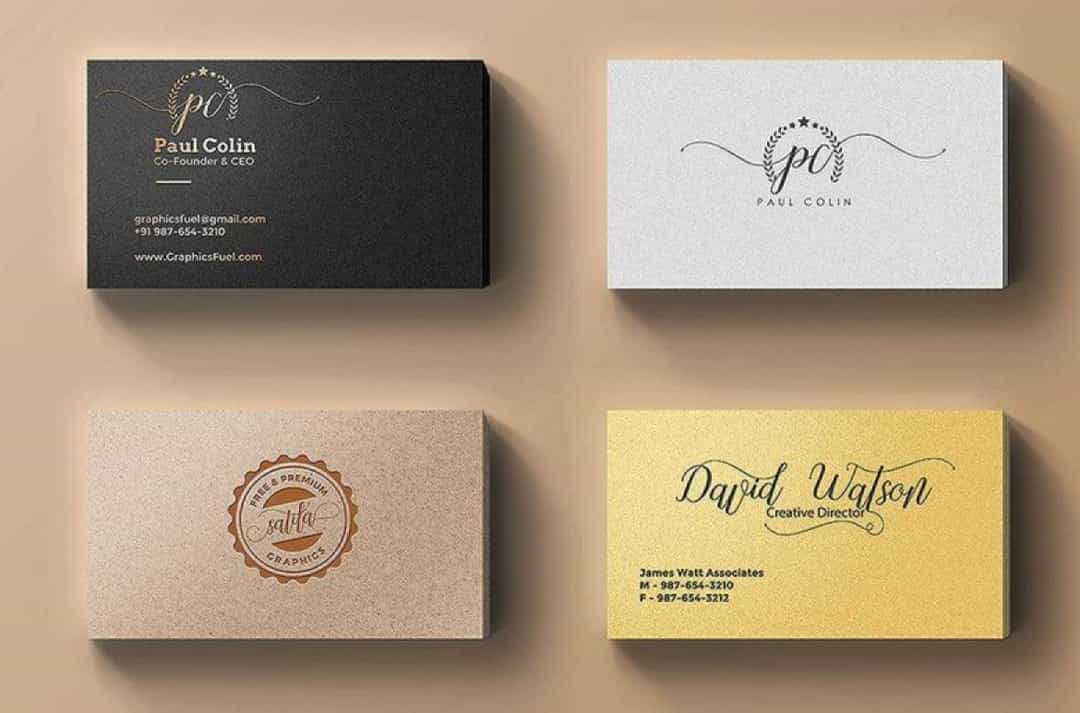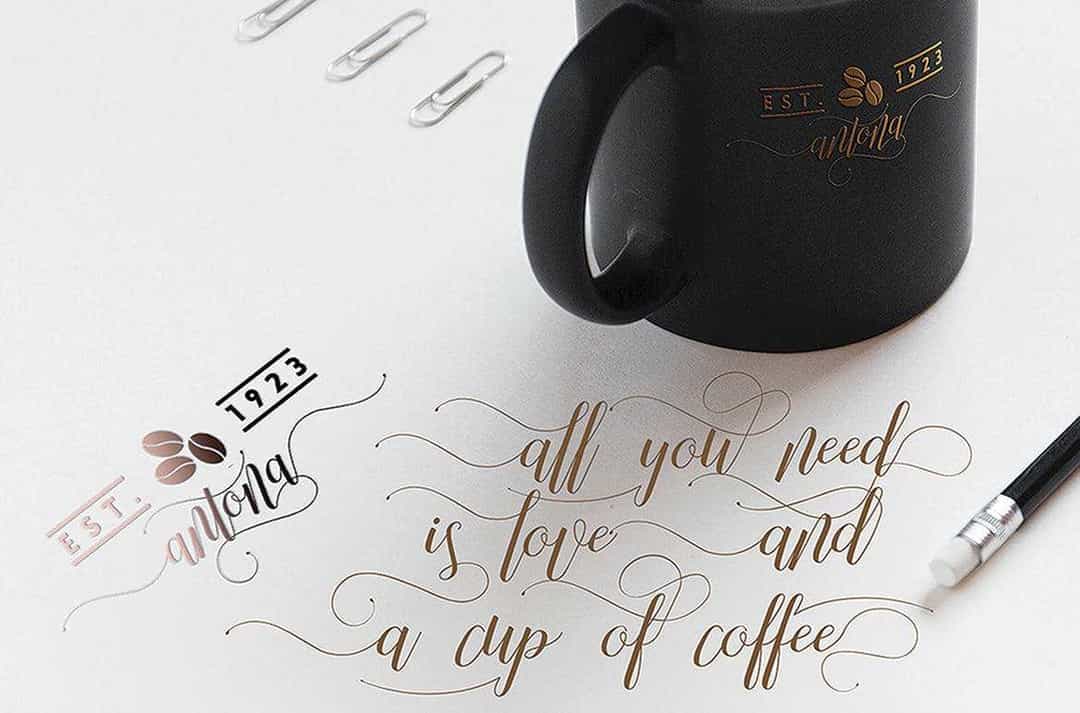
Molinha is an elegant handwritten calligraphy font, simple and clean, which has been created to be flexible and versatile for any projects. Ideal for the new Calligraphy styles this font can be useful for various projects, such as weddings and congratulation cards, posters, business cards, brand logos, fashion letters, and clothing, stationery.